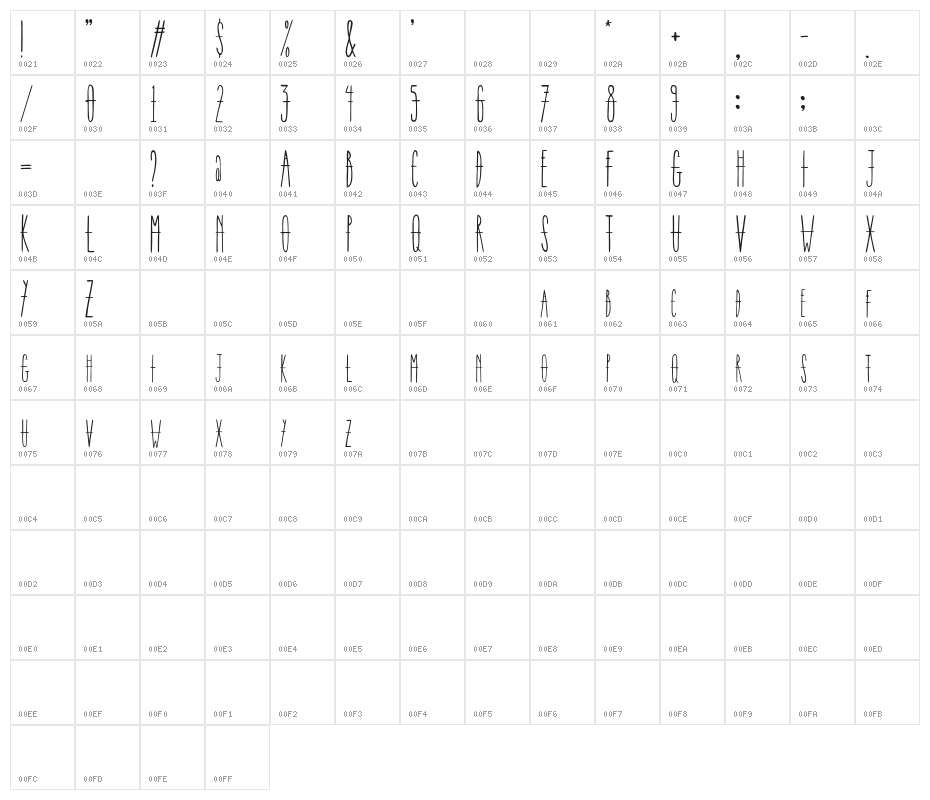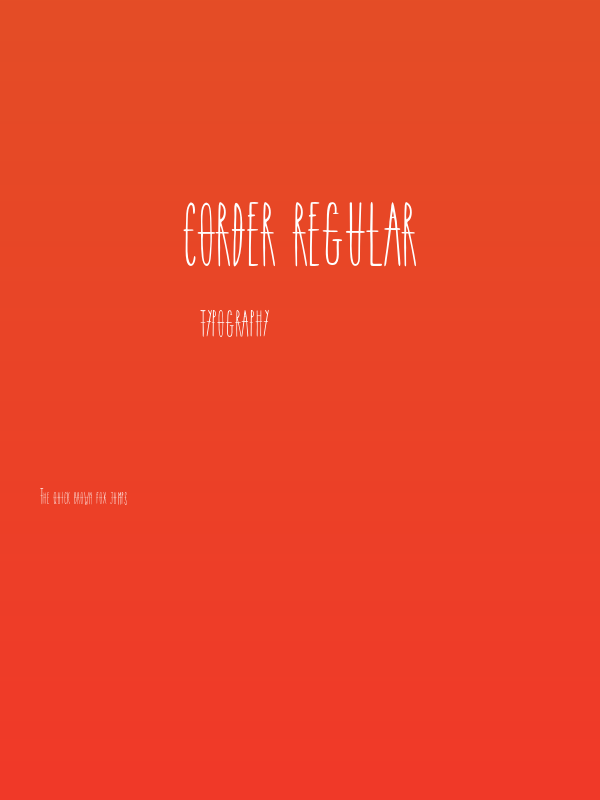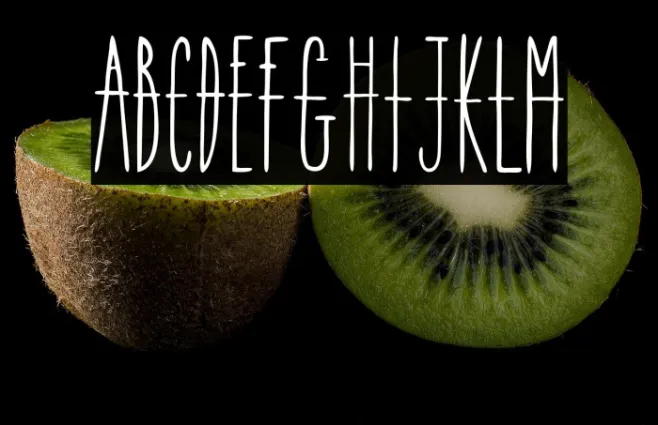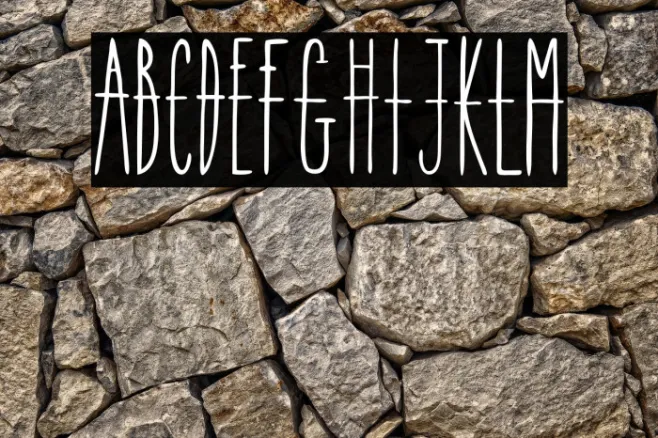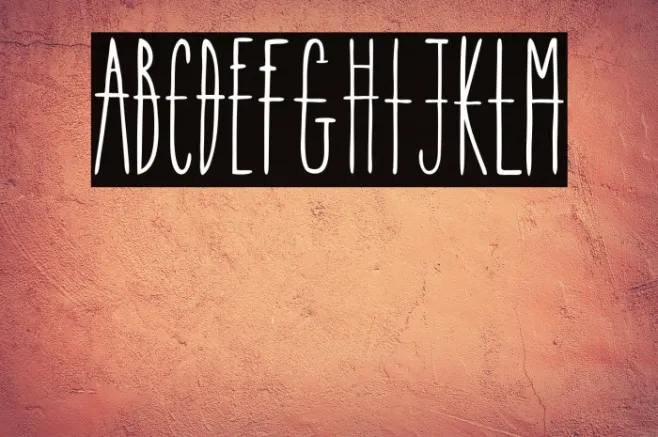
Corder Regular Font
Corder Regular Description
This font features a unique and artistic design with elongated, narrow characters that create a striking visual impact. The uppercase letters are tall and slender, with a consistent vertical alignment that adds to the font's modern and stylish appearance. The lowercase letters maintain the same narrow structure, providing a cohesive look across all text. Numbers and special characters are designed to match the overall aesthetic, ensuring uniformity. This font's distinctive style makes it ideal for creative projects that require a bold and unconventional typeface.
| Proposed Projects | Ideal for posters, album covers, fashion branding, and artistic projects. |